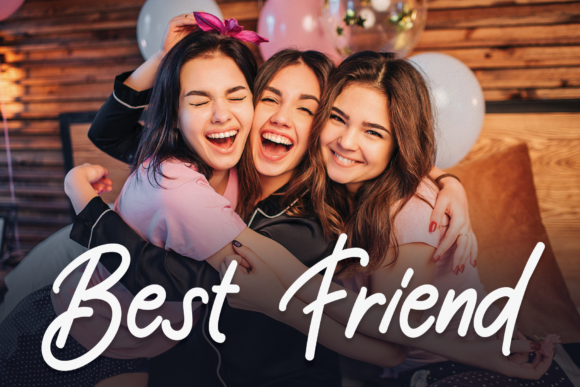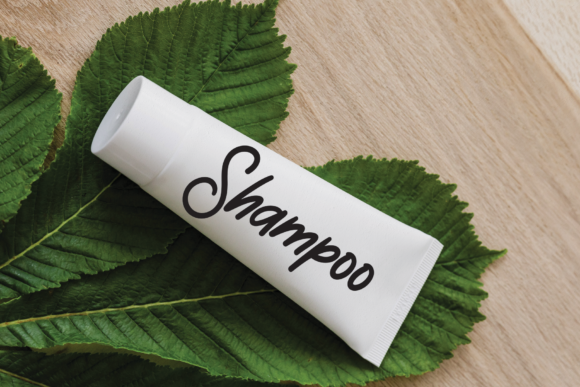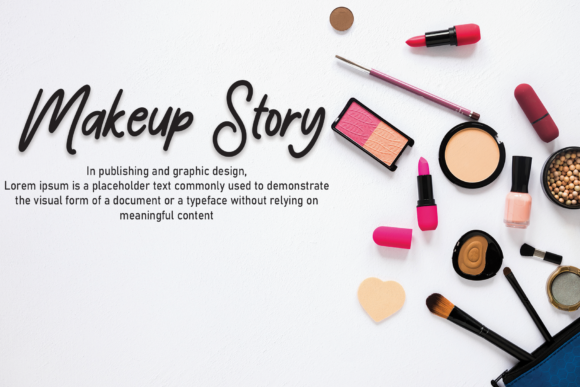
Introduction to Grinlane Font
Grinlane is a beautiful script font perfect for wall displays, wedding invitations, social media posts, logos, advertisements, product packaging, product designs, labels, photography, watermarks, invitations, stationery, and any project that requires a handwritten touch.
Key Features of Grinlane Font
Why Choose Grinlane Font?
Grinlane Font offers exceptional quality and versatility, making it a valuable addition to your design toolkit. Whether you’re creating for personal projects or commercial use, Grinlane Font delivers professional results.